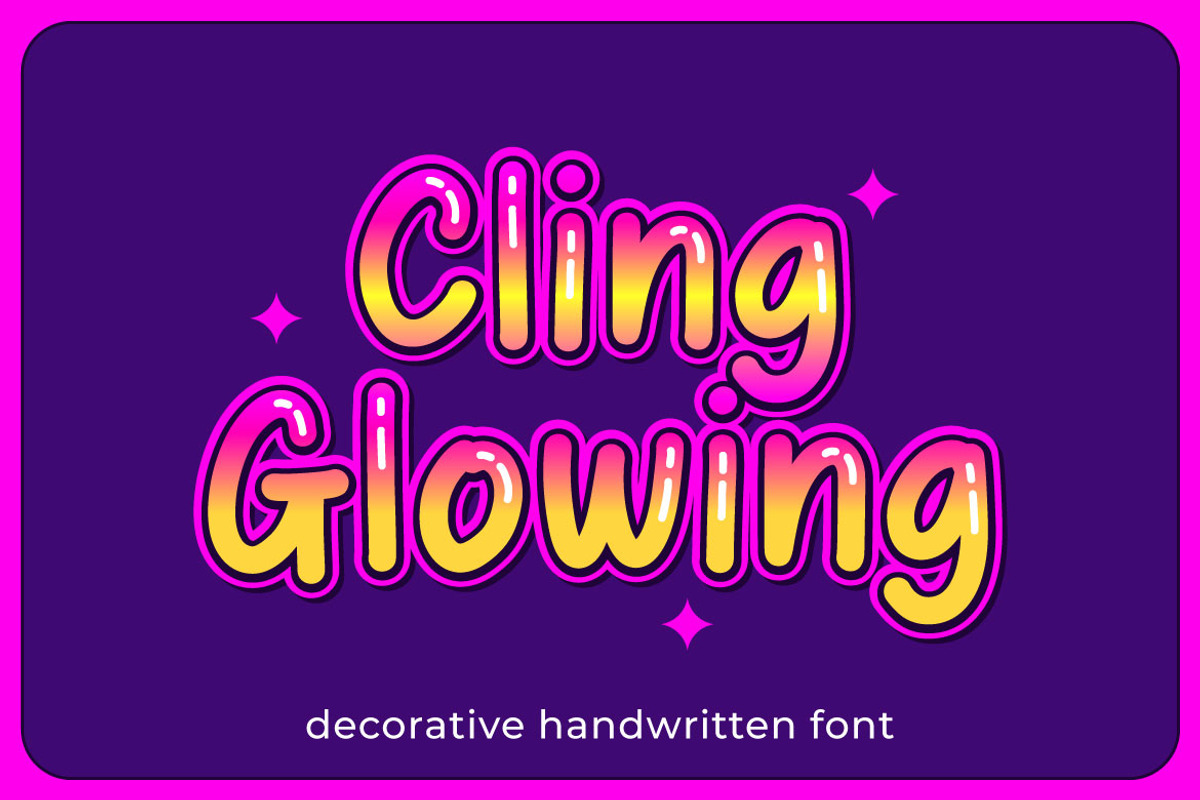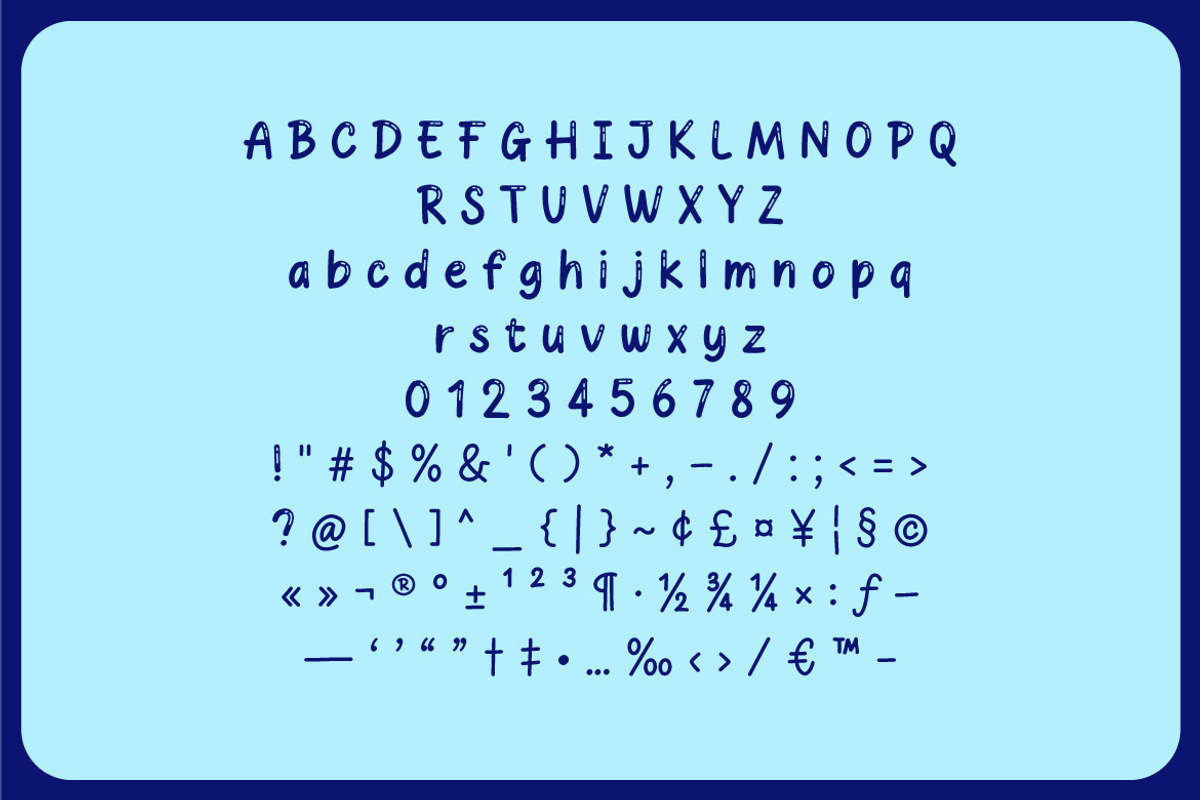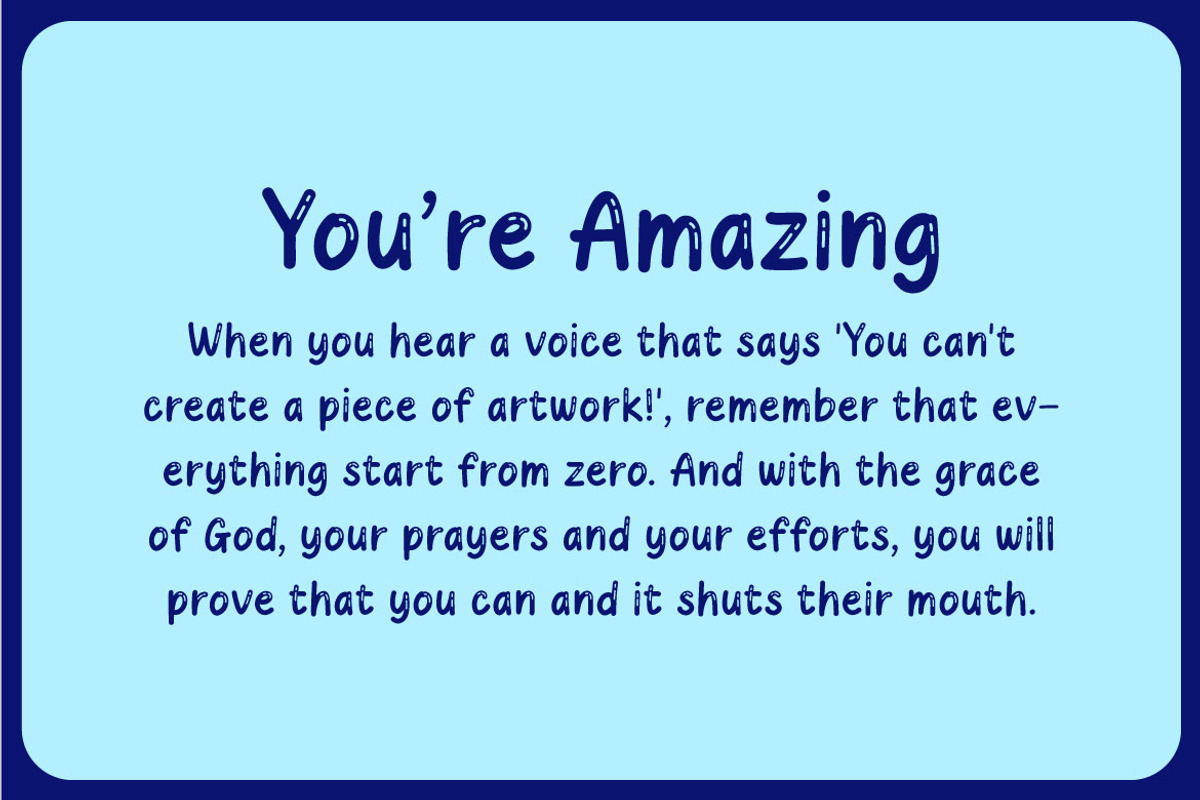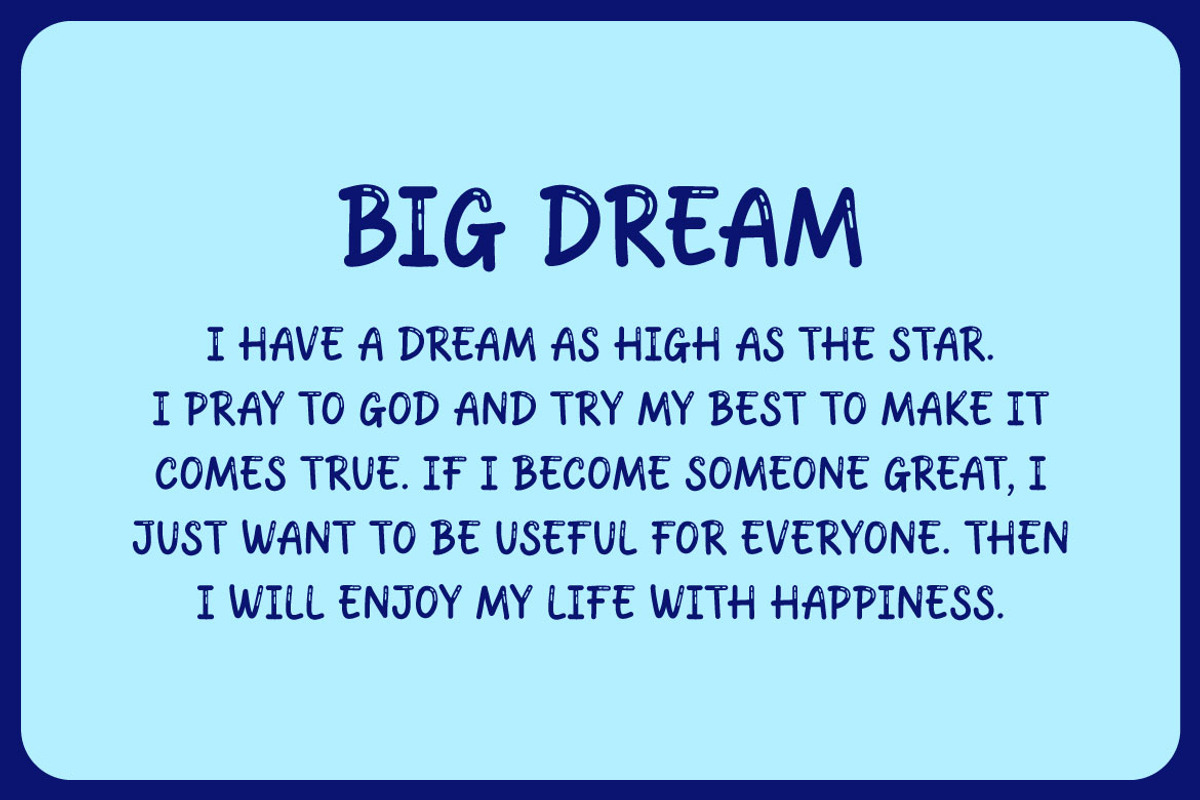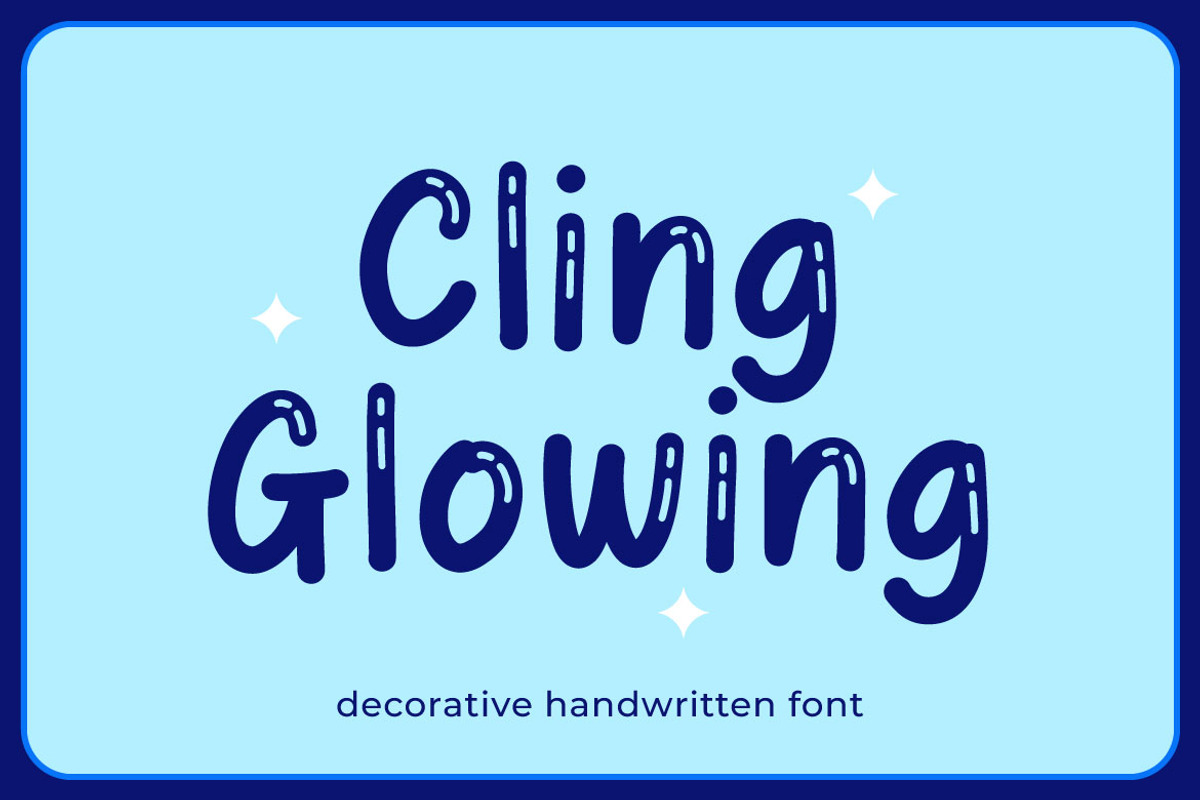
Cling Glowing - Bubble Display Font
Hello! Cling Glowing is a cartoon bubble display font. Cling Glowing can be used in any works such as storybook, comic book, school, flyer, book title, advertisement, social media content, logo and many more.